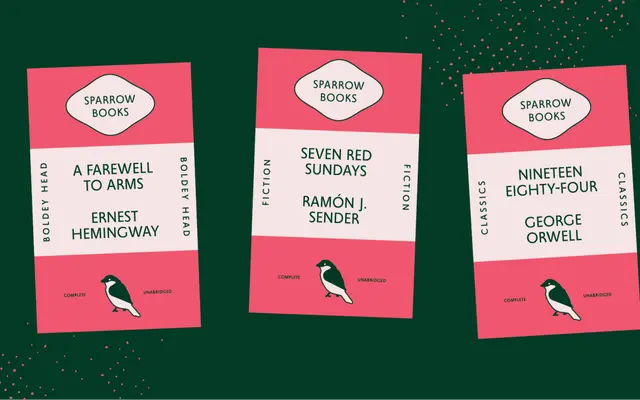
Renwick
A British humanist sans by Reese Lee, drawn in the tradition of Johnston Sans and Gill Sans and optimised for body copy at small sizes.
Renwick takes its cues from British humanist sans serifs of the 1920s, citing Johnston Sans, Gill Sans and Granby as its touchstones. Open apertures, calligraphic lowercase forms and generous letterspacing make it well-suited to sustained reading at 9pt, and a full set of OpenType small caps supports novel and long-form typesetting. Language support covers over 200 Latin-script languages including Vietnamese and Greenlandic. The family is currently undergoing a full redesign, with the original release remaining available in the interim.
Explicitly classified as a humanist sans in the British tradition, drawing on Johnston Sans, Gill Sans and Granby as direct references with calligraphic influence in the lowercase.